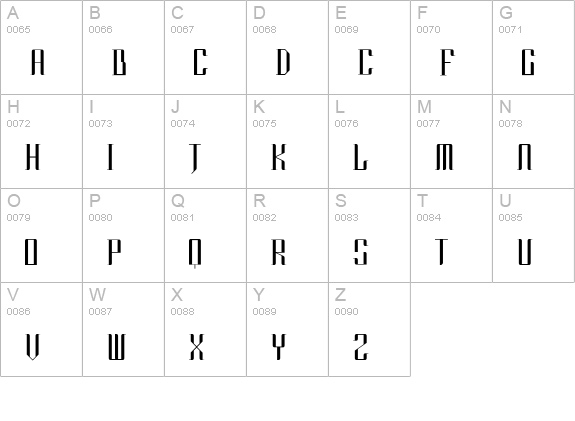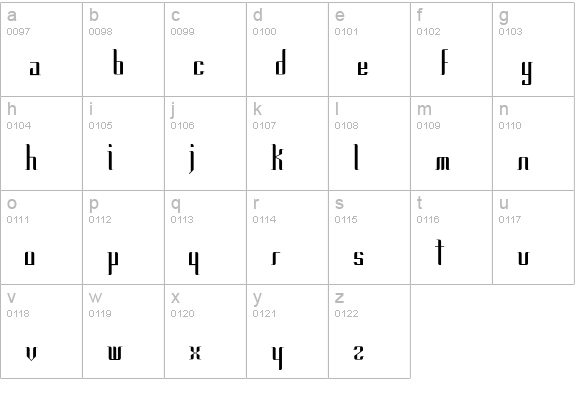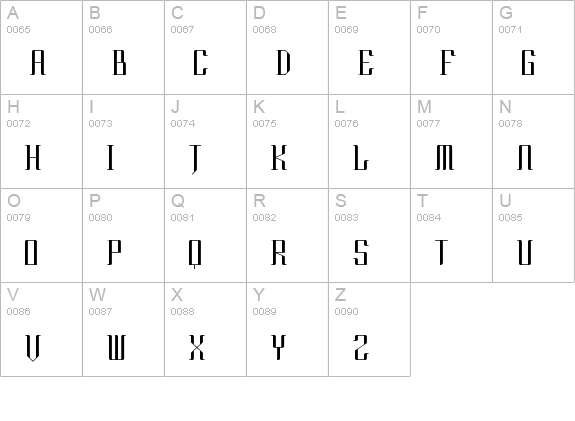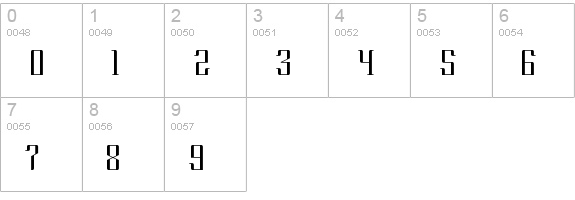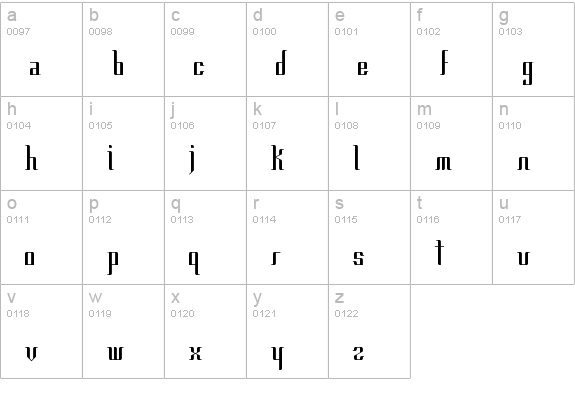
Sharpen Font Details
Introducing Sharpen font, a bold and dynamic typeface that is sure to make a lasting impression. With its sleek and modern design, Sharpen font is perfect for adding a touch of sophistication to any project. Featuring sharp edges and clean lines, this font exudes confidence and strength. Whether used for headlines, logos, or any other design element, Sharpen font demands attention and leaves a lasting impact. But what sets Sharpen font apart is not just its stunning design, but also its availability. Yes, you heard it right – Sharpen font is completely free! That's right, this incredible font can be freely downloaded at FontsMarket.com, allowing you to enhance your designs without breaking the bank. So why wait? Download Sharpen font today and let your creativity soar. Whether you're a graphic designer, a web developer, or simply someone who appreciates beautiful typography, Sharpen font is a must-have in your font collection. With its versatility and eye-catching appeal, Sharpen font is sure to become your go-to choice for all your design needs. Don't miss out on this incredible opportunity to elevate your projects to the next level. Get your hands on the freely available Sharpen font today and watch your designs come to life.